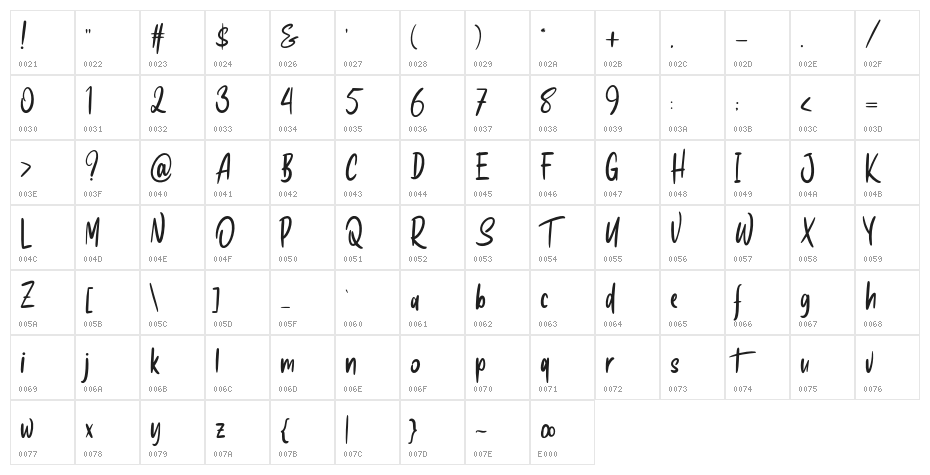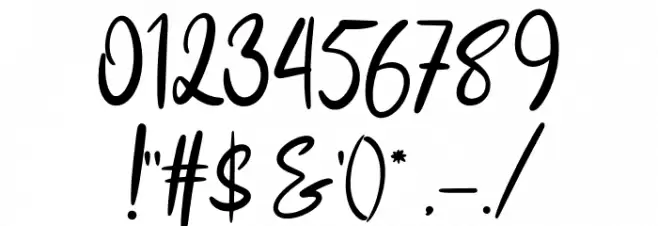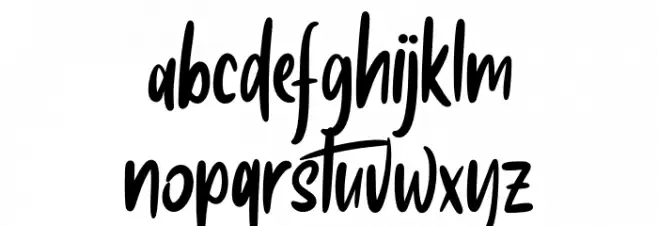
Hoosky Font
| Anwendungsfall | Logos, Headlines, Posters |
| Vorgeschlagene Projekte | Ideal for greeting cards, children's books, playful branding, and social media graphics. |